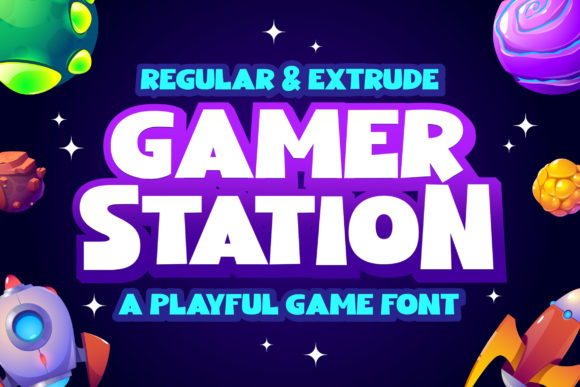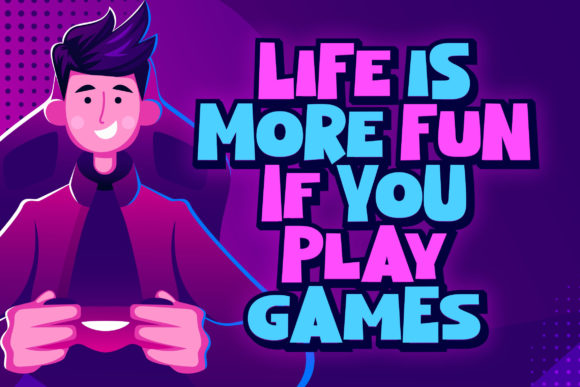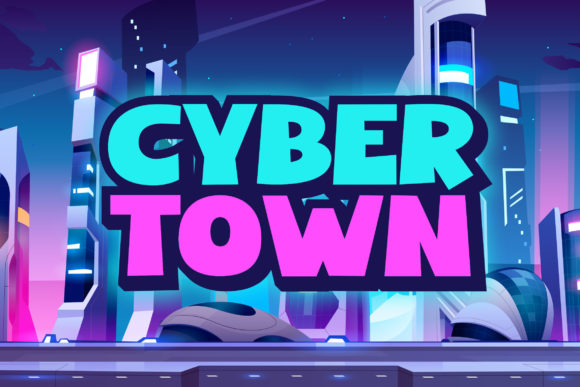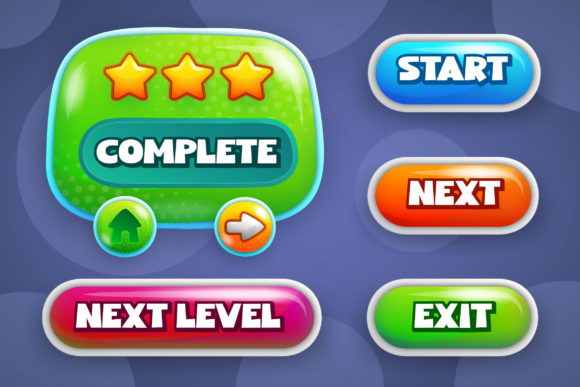
Gamer Station Font: Bold Display Font for Playful Titles & Creative Design
About the Gamer Station Font
Let us introduce you to Gamer Station Font, where timeless design meets modern craftsmanship. Gamer Station is a cool and thick lettered display font. This original look will appeal to a wide range of crafty ideas, from letterheads and titles, to stationery.
Gamer Station excels as a headline font for projects needing a bold, impactful statement. Its strong, thick letterforms work particularly well in posters, game packaging, and branding for companies targeting a youthful, energetic audience. Avoid using it for body text or long paragraphs; its weight and design are not optimized for readability in smaller sizes.
The font’s personality is undeniably bold and playful, making it ideal for projects requiring a vibrant and attention-grabbing aesthetic. It pairs effectively with clean sans-serif fonts like Open Sans for body text, creating a strong visual contrast. For a more playful feel, consider pairing it with a rounded geometric sans-serif like Futura Rounded.
Alternatively, a subtle serif like Garamond could add a touch of sophistication to balance the boldness of Gamer Station, particularly if used in supporting elements. This approach might be suitable for logos or branding materials requiring a mix of energy and elegance.
Gamer Station Font Usage Examples
Gamer Station Font Example